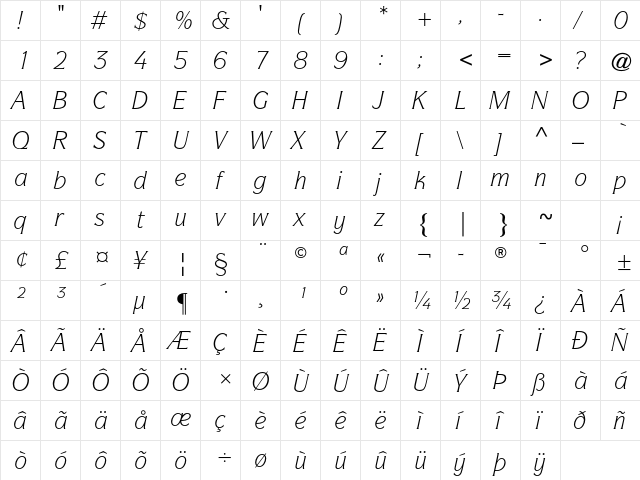
ITC Symbol Std Book Italic Font Preview
ITC Symbol Std Book Italic
| Designer | Aldo Novarese |
Design Context for ITC Symbol Std Typeface
ITC Symbol Std is a composed and adaptable typeface that performs quietly and consistently across a wide range of design contexts. The dynamic lean of this cut emphasises speed and emphasis in any layout.
Pro Tip: Use ITC Symbol Std for emphasis, pull quotes, and subheadings where its slanted energy can add rhythm to the layout.